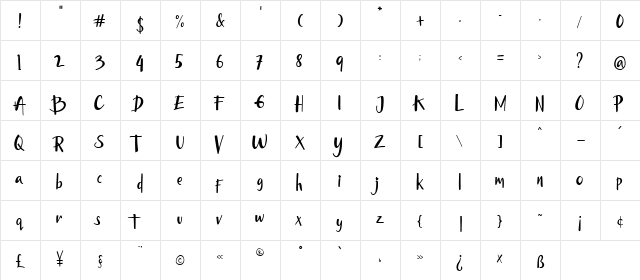
Hello Bunny Handwriting Regular
| Foundry | Ardyana Types Studio |
| Designer | Ardyana Types |
Design Context for Hello Bunny Handwriting Typeface
Hello Bunny Handwriting brings a calligraphic fluidity to the page — its connecting strokes and expressive curves give it an unmistakably human quality.
Font Pairing: Combine Hello Bunny Handwriting with a simple geometric sans for maximum contrast — the tension between flowing curves and clean structure is a classic typographic pairing.
Pro Tip: Use Hello Bunny Handwriting for short runs of text — names, titles, or taglines. Extended body copy in script faces tires the eye quickly.